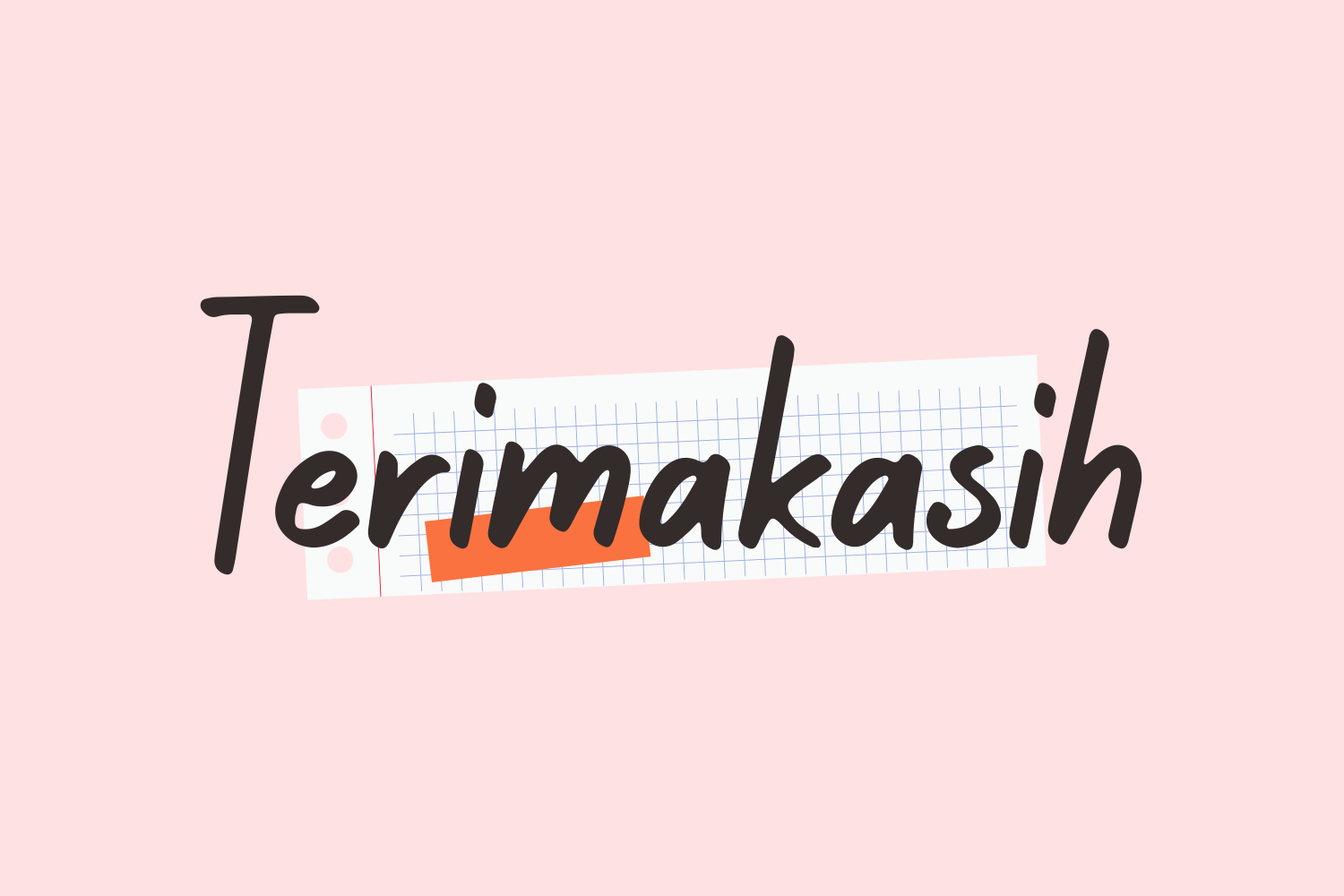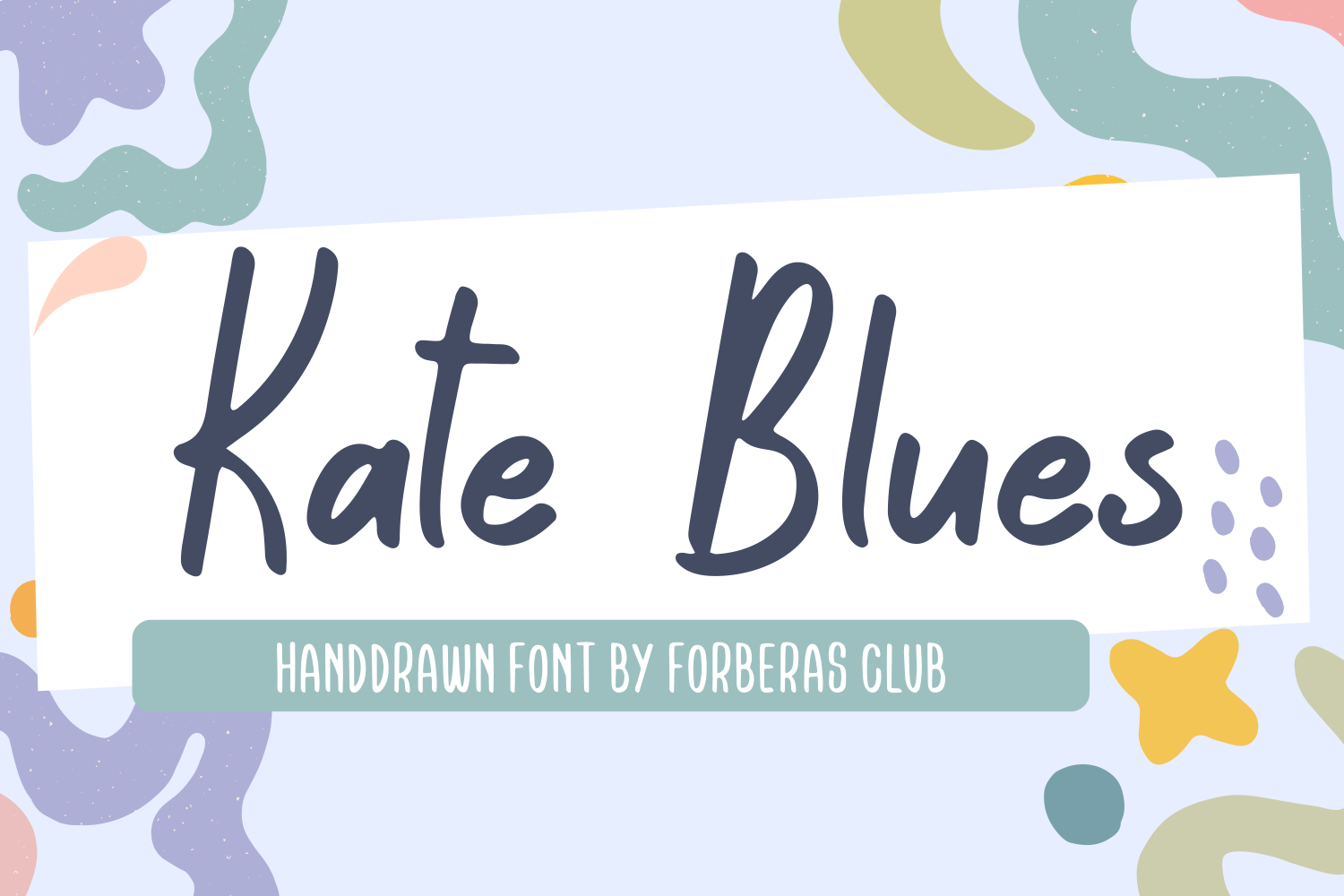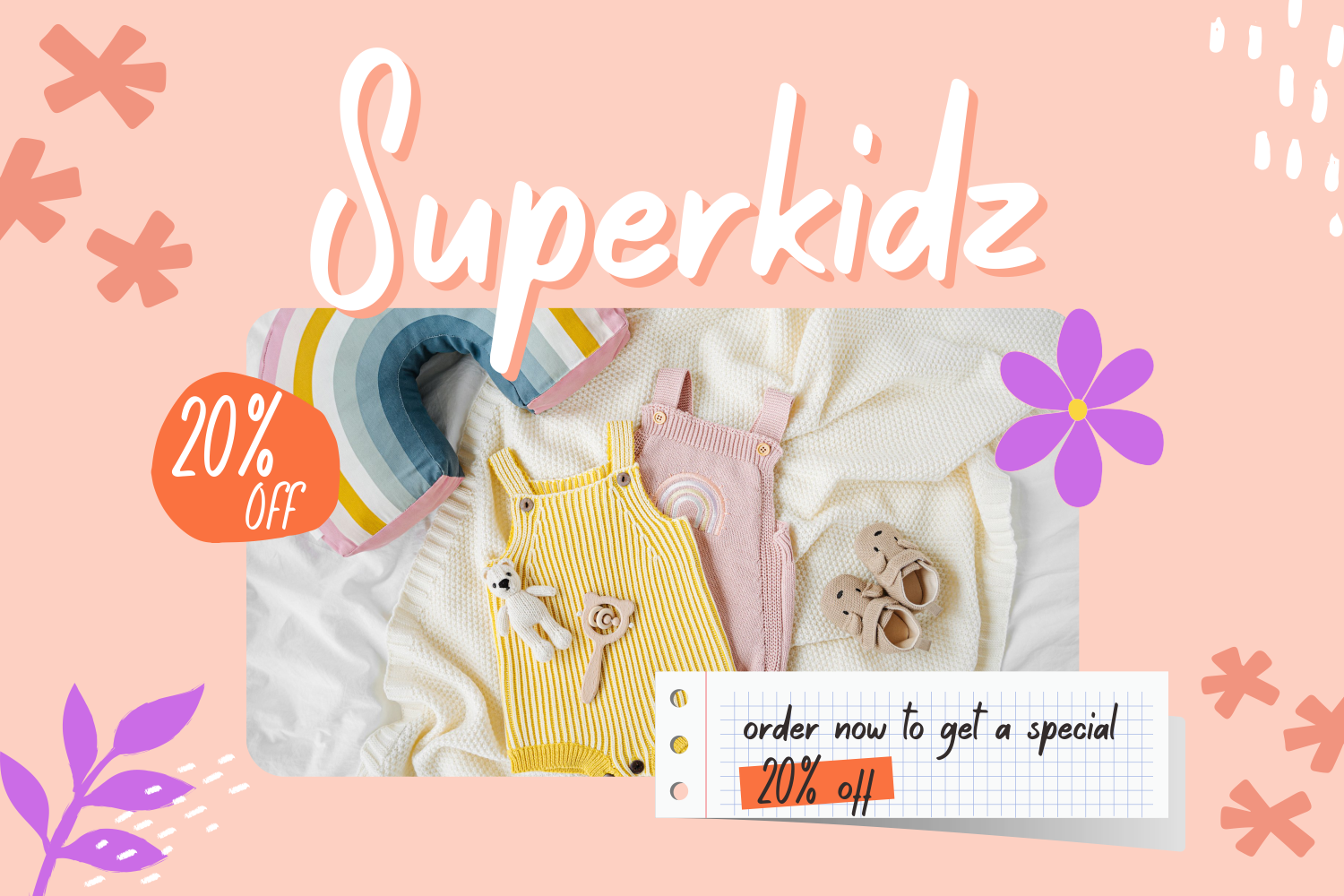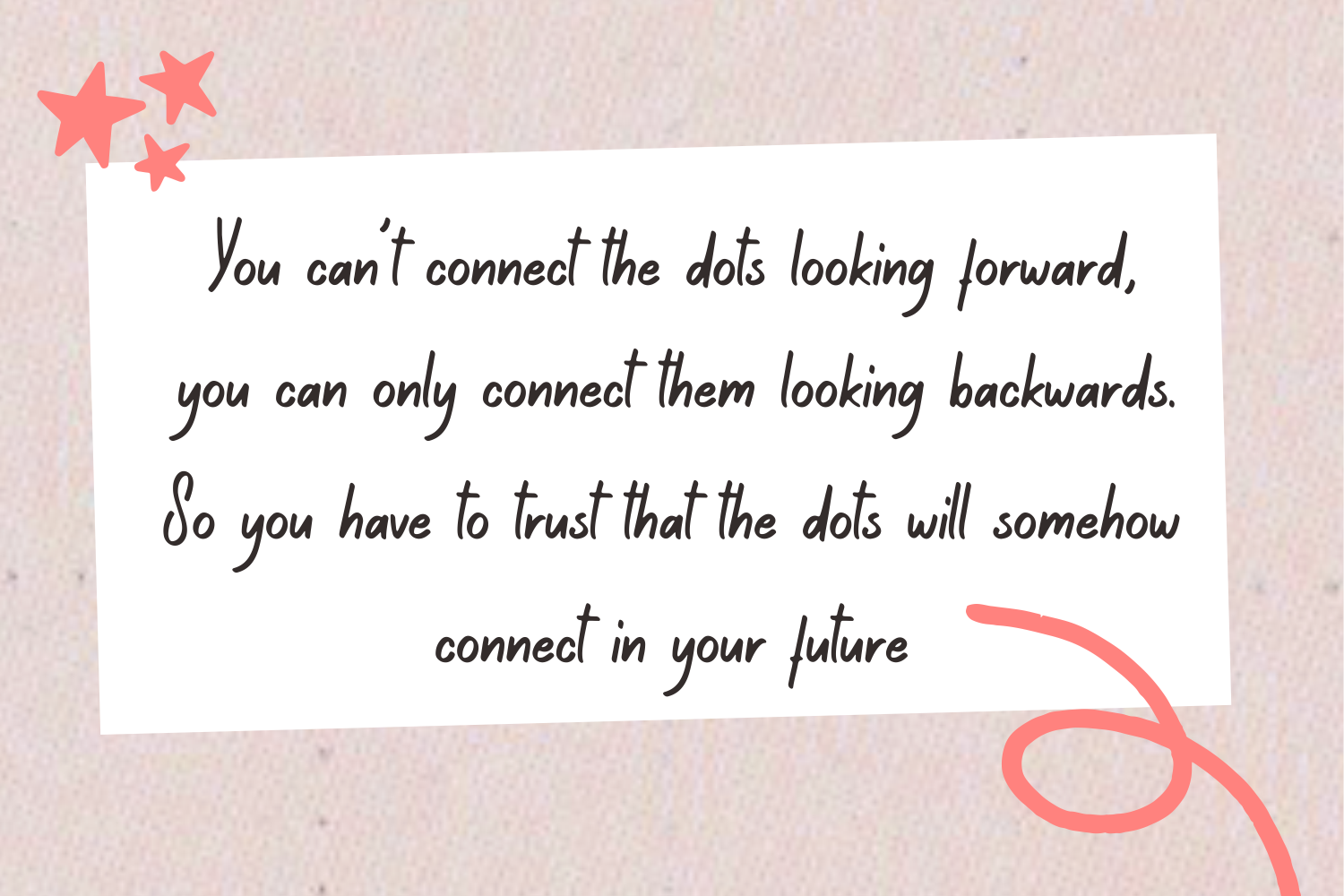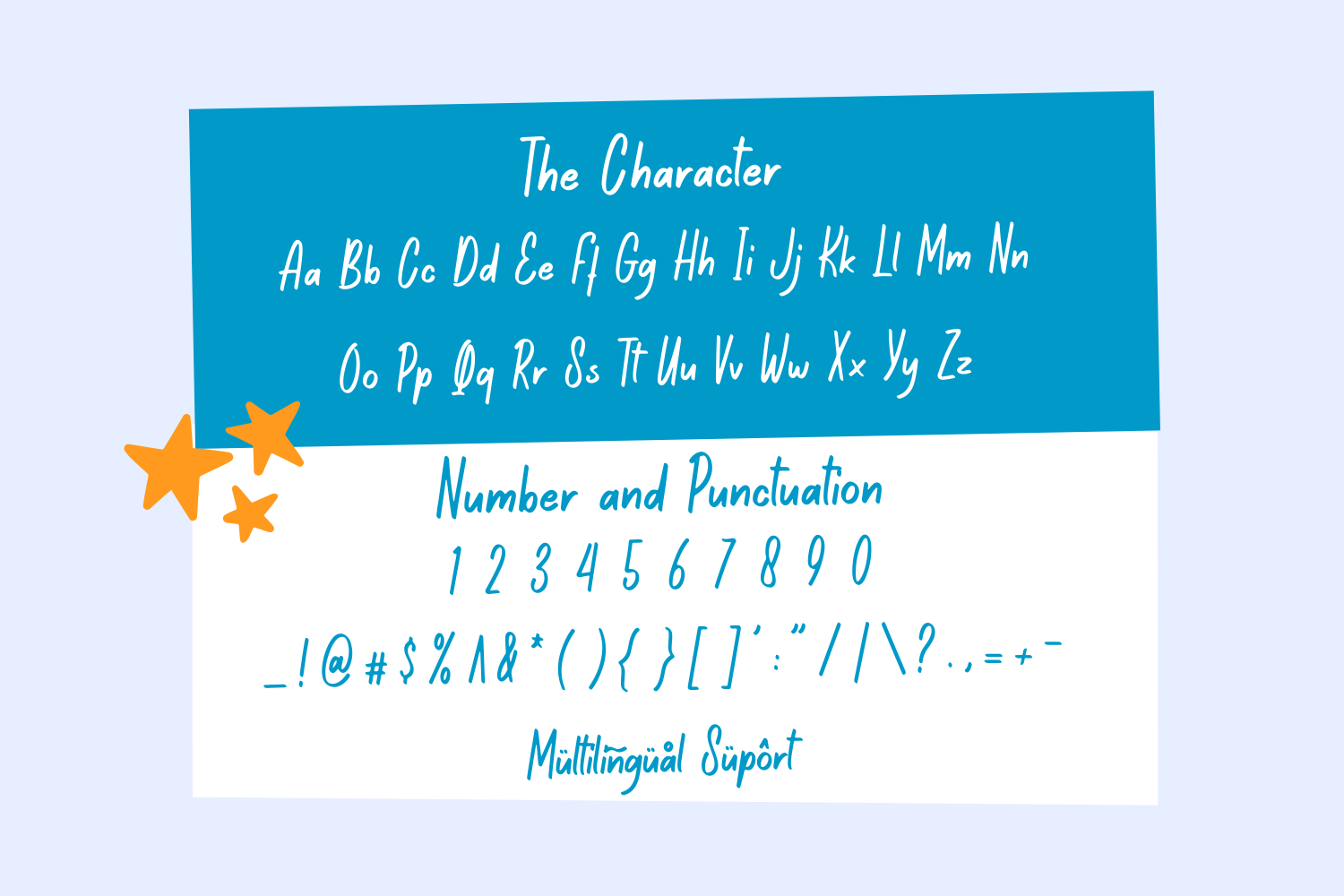
Kate Blues Font
Kate Blues Display Font is a fancy and elegant handcrafted font that was created to impress your audience and make your branding shine. Make your projects dance with this elegant and wonderful font wherever you use it. Use it for your headings, logos, ads, printed quotes, packaging, and even your website or social media branding.
Forberas Foundry